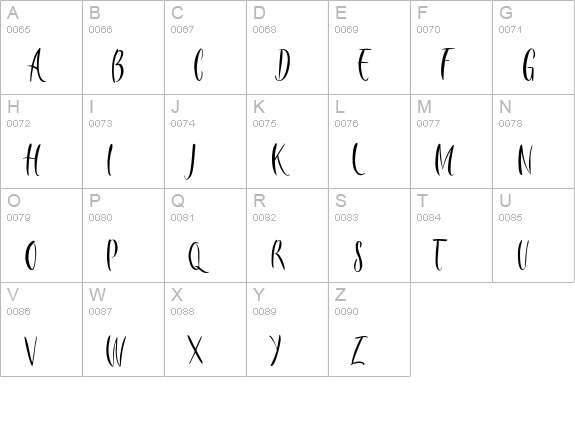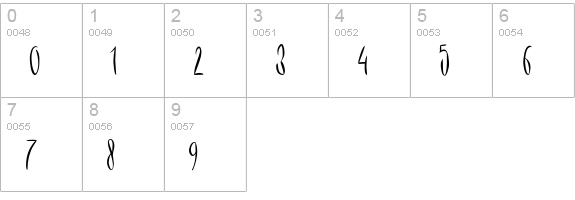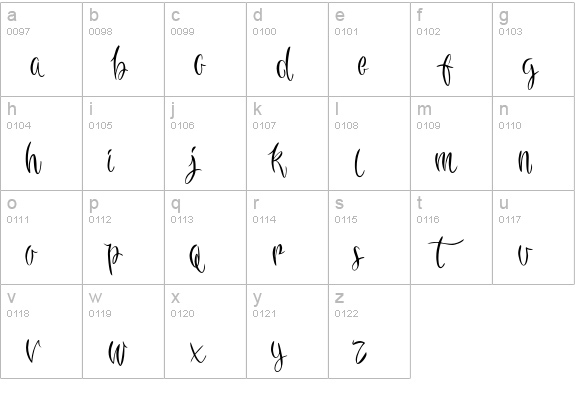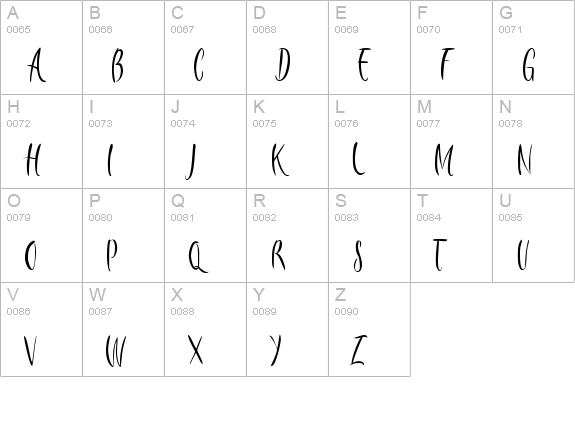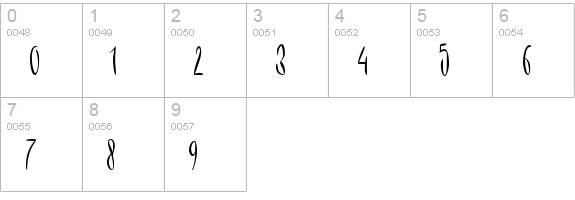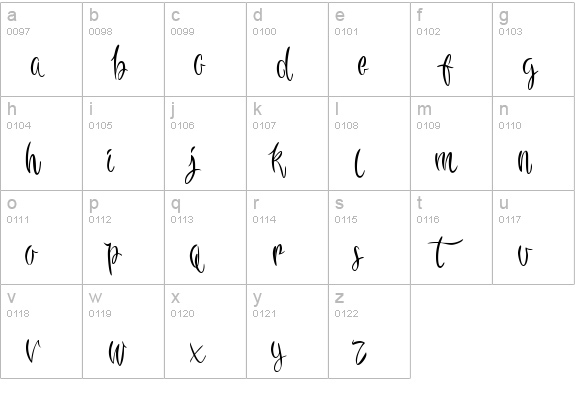
Sweet Delia Font Details
Sweet Delia font is a charming and playful typeface that exudes a sense of warmth and creativity. Its whimsical curves and stylish flourishes make it perfect for a variety of design projects, from invitations to branding. The font features a unique blend of elegance and fun, making it a versatile choice for both professional and personal use. What's even better is that Sweet Delia font is available for free download at FontsMarket.com. With its free availability, you can easily add this delightful font to your collection without any cost. Whether you're a designer looking to enhance your projects or someone who simply appreciates beautiful typography, Sweet Delia font is sure to bring a touch of sweetness to your creations. Download it today and let your creativity shine with this lovely typeface.